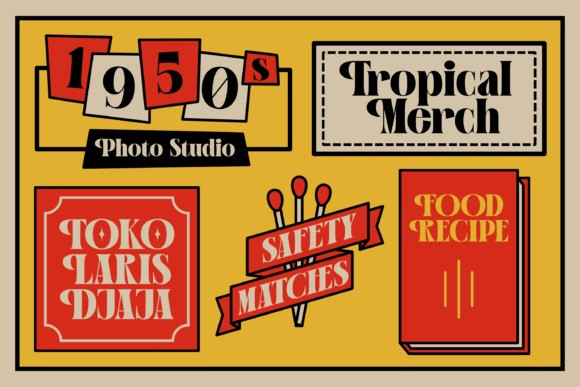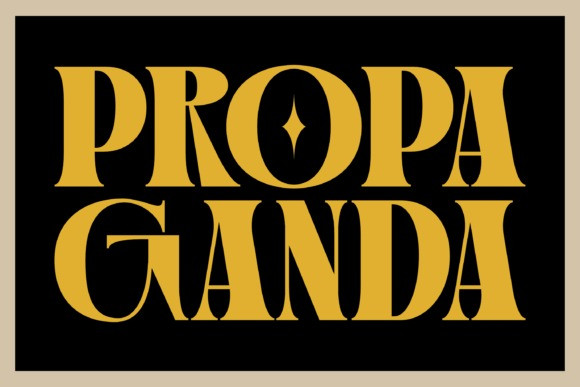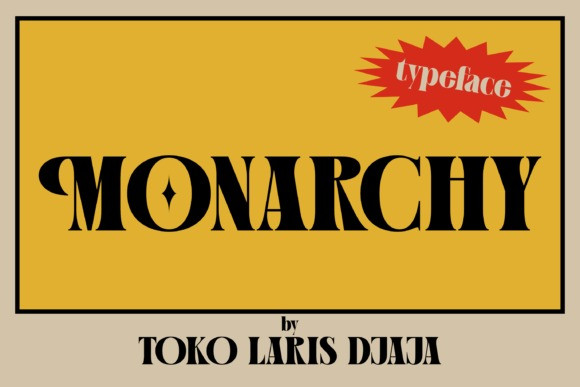
Monarchy Font
Monarchy Font is a vintage typeface with elegant fee condensed form and classical proportions. Whether you’re creating posters, book covers, merchandise, stickers, apparel, crafts, invitations, or simply want to infuse some retro joy into your designs, Monarchyfont is the perfect choice for your designs.